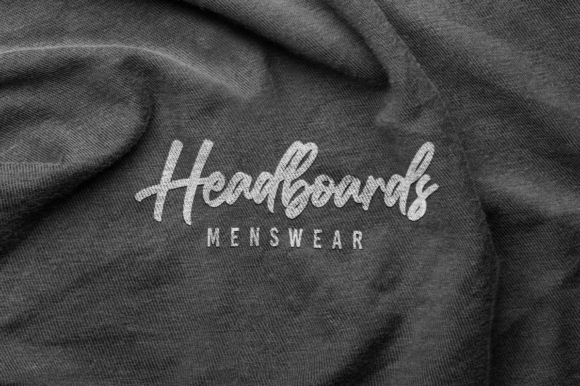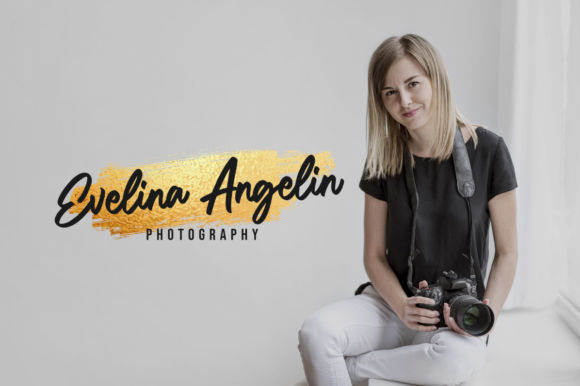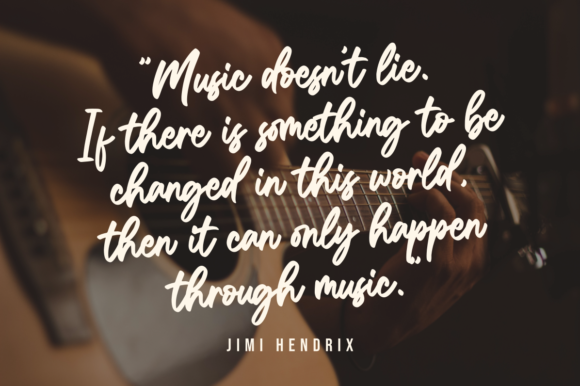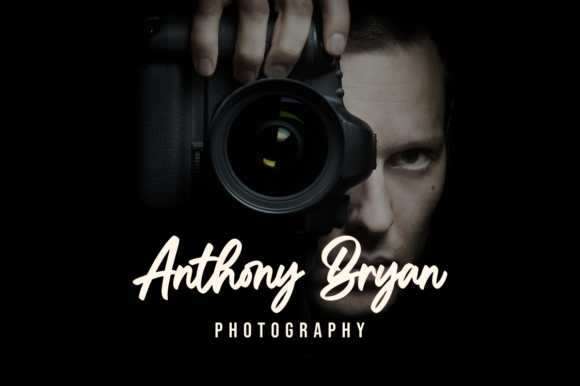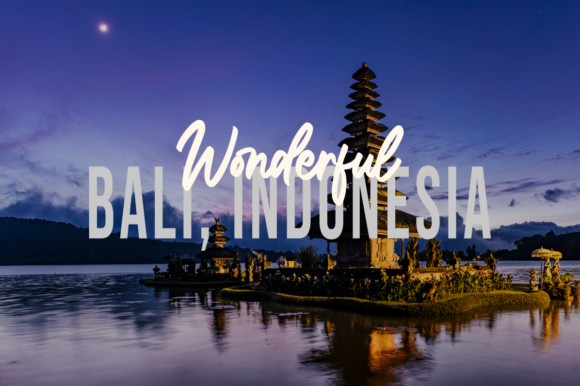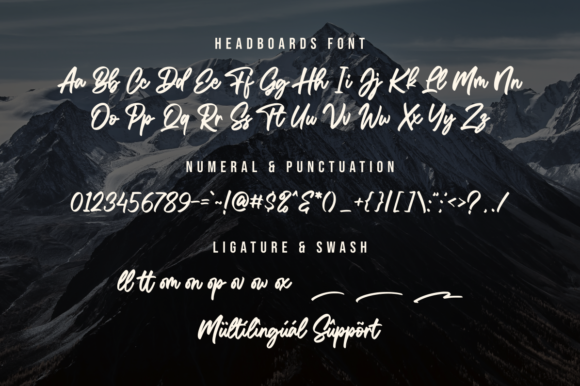
Introducing Headboards Font: Elevate Your Designs with Elegance
In the world of typography, a font can make or break a design. For designers and crafters looking to add a touch of sophistication and elegance to their projects, Headboards Font is an excellent choice. This beautiful, flowing cursive script font is designed to bring a sense of luxury and refinement to any design.
What is Headboards Font?
Headboards Font is a stunning cursive script font that boasts beautiful, well-balanced characters. Its flowing lines and curves create a sense of movement and fluidity, making it perfect for designs that require a touch of elegance. Whether you’re working on a branding project, a wedding invitation, or a craft project, Headboards Font is sure to impress.
Key Features of Headboards Font
- Beautiful and well-balanced characters: Each character in Headboards Font is carefully crafted to ensure that it is visually appealing and harmonious with the other characters.
- Flowing cursive script: The font’s cursive script style creates a sense of movement and fluidity, making it perfect for designs that require a touch of elegance.
- Versatile: Headboards Font matches a wide pool of designs, making it a versatile choice for designers and crafters.
How to Use Headboards Font in Your Designs
Headboards Font is an incredibly versatile font that can be used in a wide range of designs. Here are a few ideas to get you started:
- Wedding invitations and stationery: Add a touch of elegance to your wedding invitations, save-the-date cards, and other stationery with Headboards Font.
- Branding and packaging: Use Headboards Font to create luxurious and sophisticated branding and packaging designs.
- Craft projects: Add a touch of elegance to your craft projects, such as handmade cards, gift tags, and scrapbooking pages.
- Signage and display graphics: Use Headboards Font to create eye-catching signage and display graphics that are sure to impress.
Tips for Getting the Most Out of Headboards Font
Here are a few tips for getting the most out of Headboards Font:
- Experiment with different sizes and colors: Headboards Font looks great in a variety of sizes and colors, so don’t be afraid to experiment and find the perfect combination for your design.
- Pair it with other fonts: Headboards Font pairs well with a variety of other fonts, so try pairing it with a bold sans-serif font for a striking contrast.
- Use it to add a personal touch: Headboards Font is perfect for adding a personal touch to your designs, such as a custom monogram or a special message.
Why Choose Headboards Font?
There are many fonts to choose from, but Headboards Font stands out from the crowd for several reasons:
- Unique and elegant design: Headboards Font has a unique and elegant design that is sure to impress.
- High-quality characters: Each character in Headboards Font is carefully crafted to ensure that it is visually appealing and harmonious with the other characters.
- Versatile: Headboards Font matches a wide pool of designs, making it a versatile choice for designers and crafters.
Headboards Font is a stunning cursive script font that is sure to elevate your designs to the next level. With its beautiful and well-balanced characters, flowing lines, and versatility, it’s the perfect choice for designers and crafters looking to add a touch of elegance to their projects. So why wait? Add Headboards Font to your collection today and notice how it makes your designs come alive!